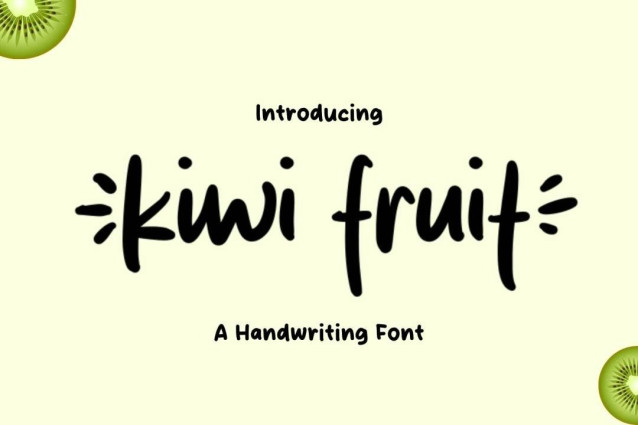
Kiwi Fruit Font
Kiwi Fruit Font is a simple and friendly handwritten font. Its natural and unique style makes it incredibly fitting to a large pool of designs. The only limit is your imagination!